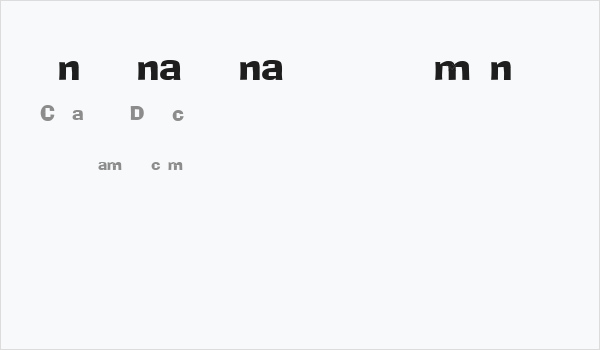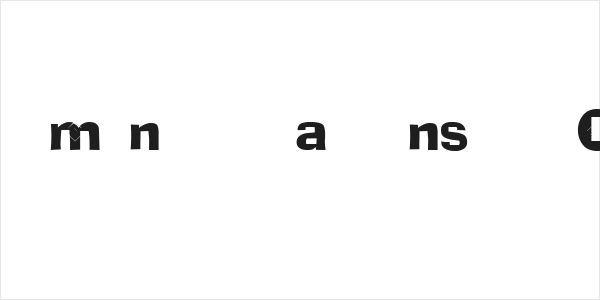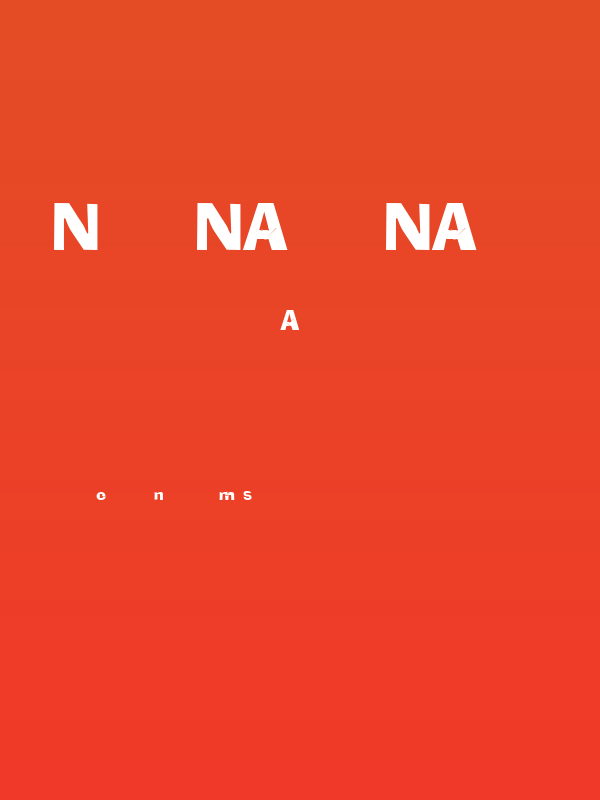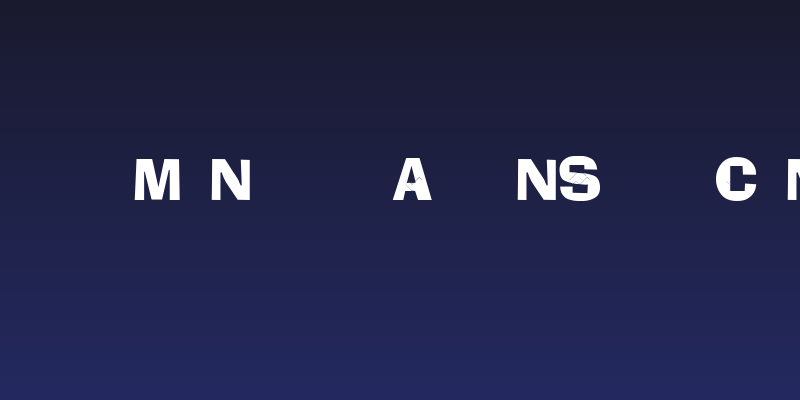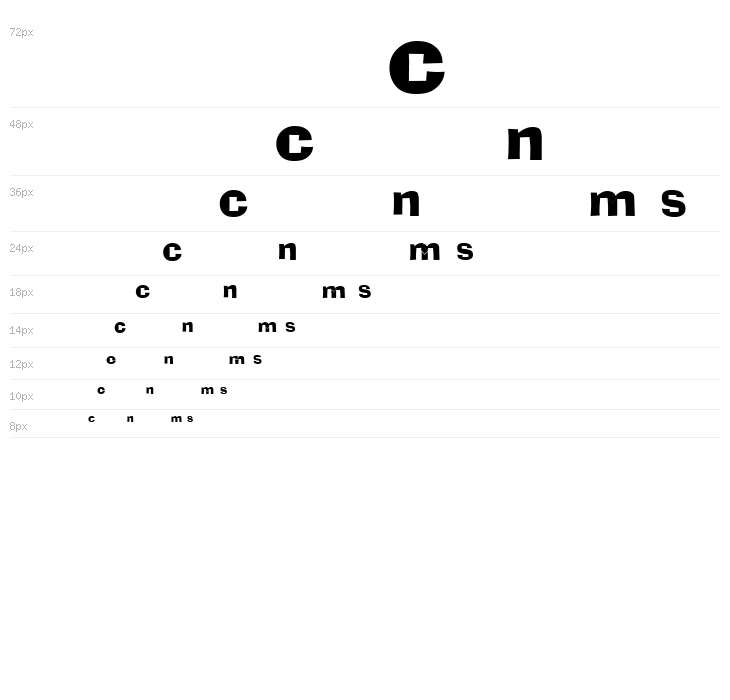
International Performing Relationship Centre June 9, 2004 Font
International Performing Relationship Centre June 9, 2004 Description
This font features bold, uppercase and lowercase letters with a strong, impactful presence. The characters are wide and have a slightly condensed appearance, giving them a robust and solid look. The strokes are uniform in thickness, contributing to a low contrast design. The overall style is modern and assertive, making it suitable for attention-grabbing headlines or titles. The font's geometric shapes and clean lines offer a contemporary feel, while the boldness ensures visibility and readability from a distance.